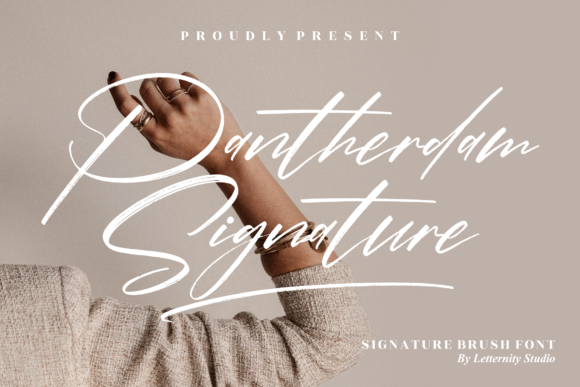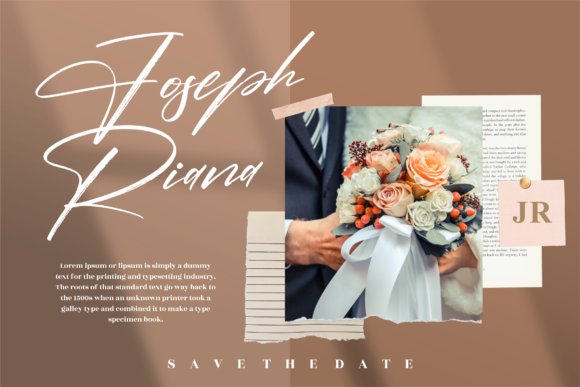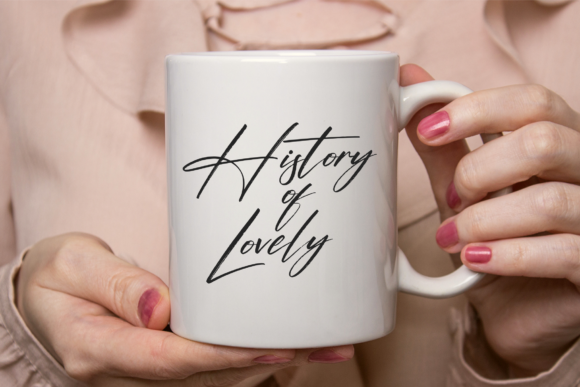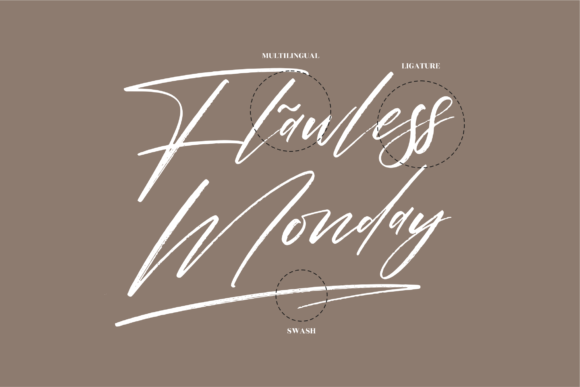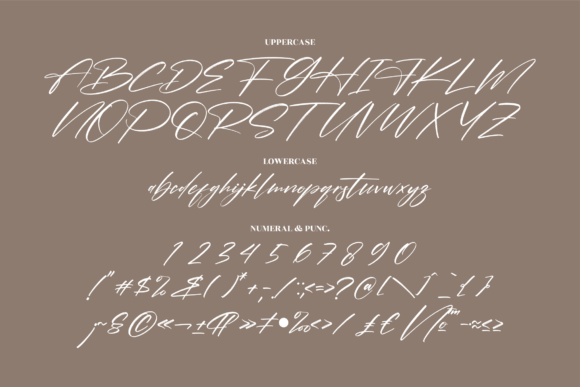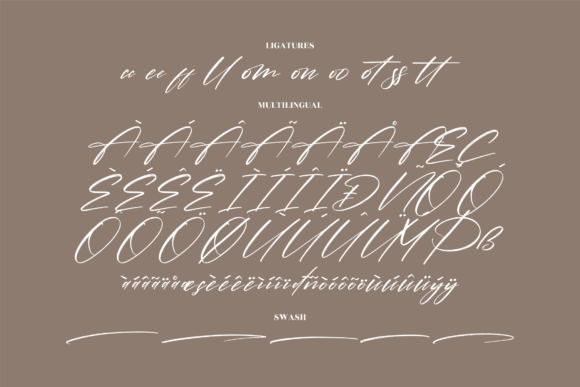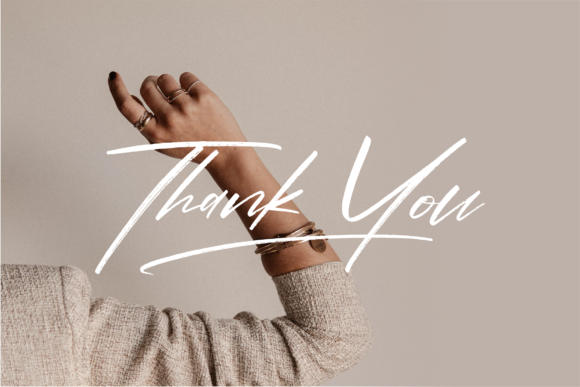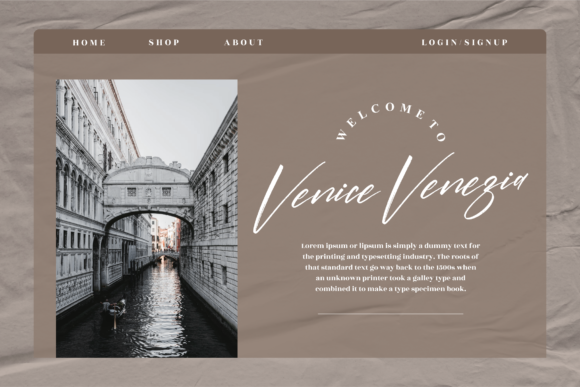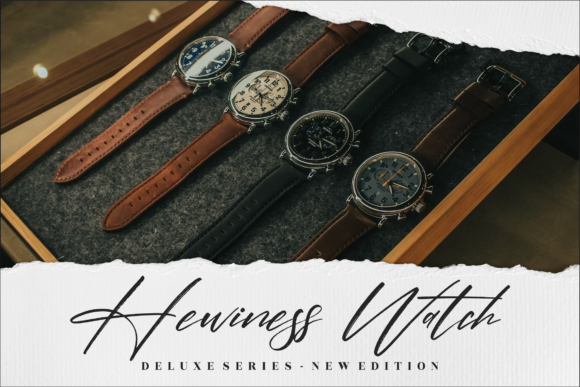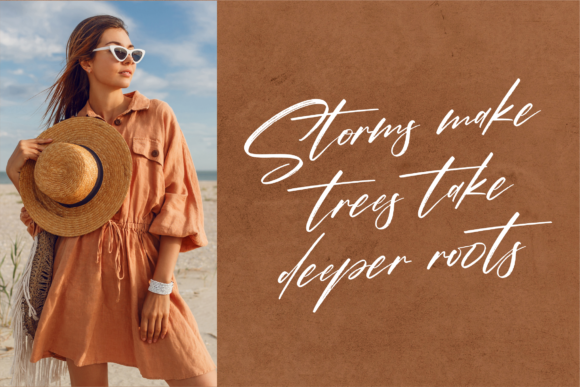
Pantherdam Signature Font
About Pantherdam Signature Font
Pantherdam Signature is a stylish calligraphy typeface with characters that dance along the baseline. It will add a luxury spark to any design project that you wish to create!